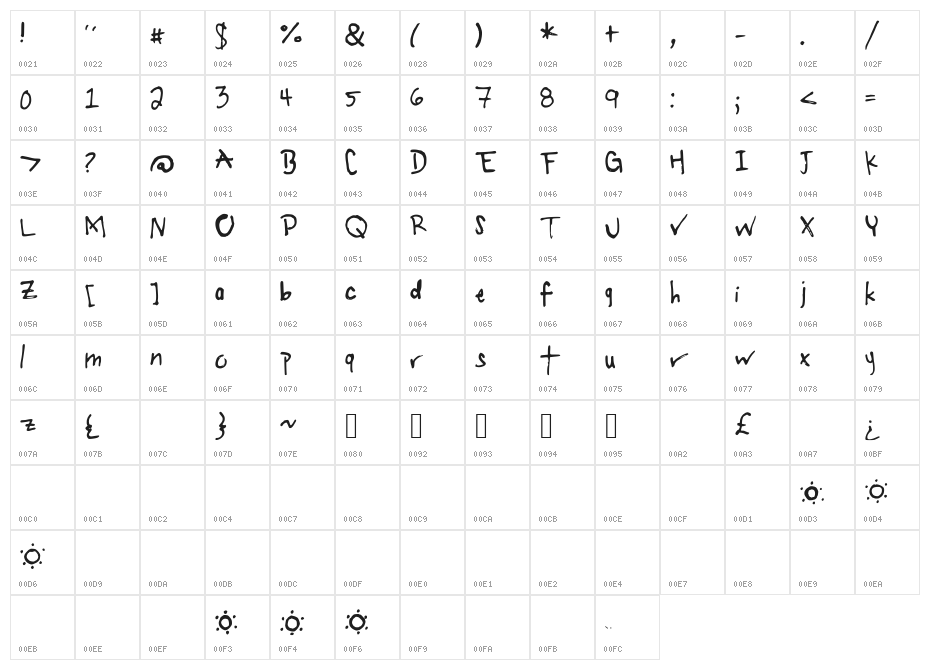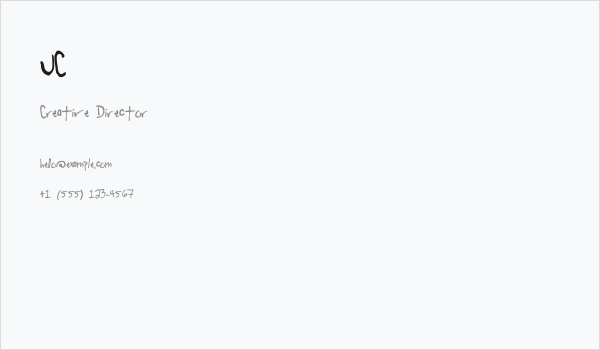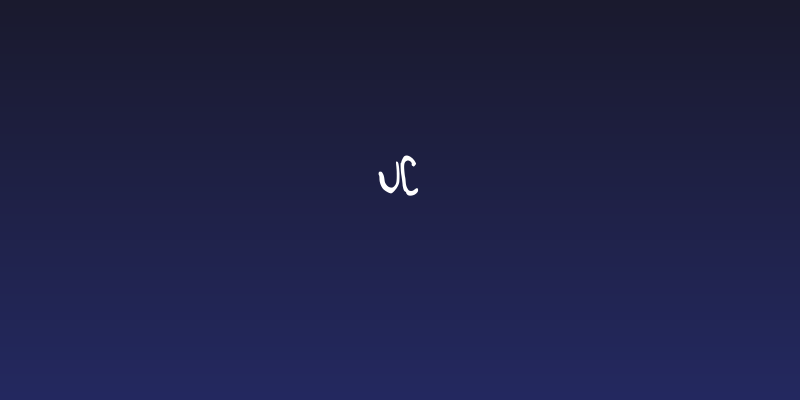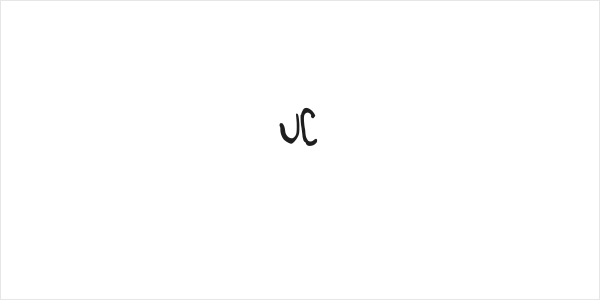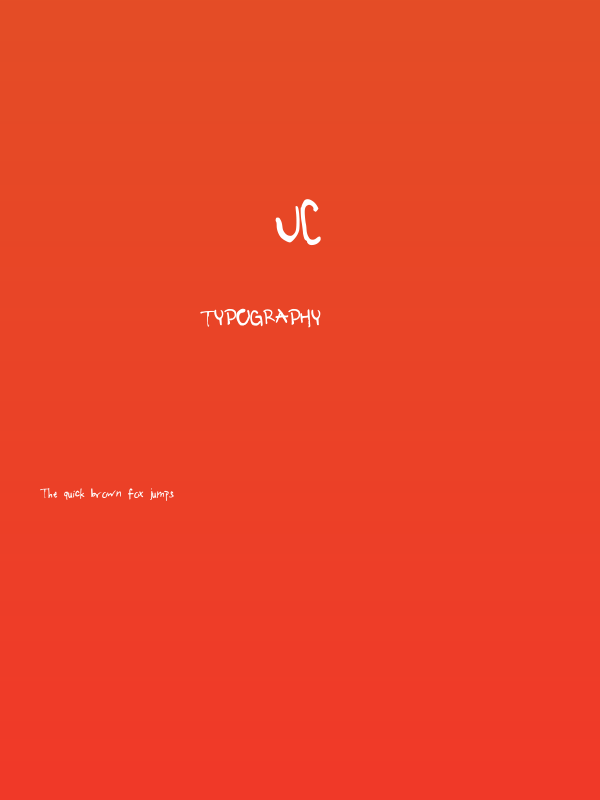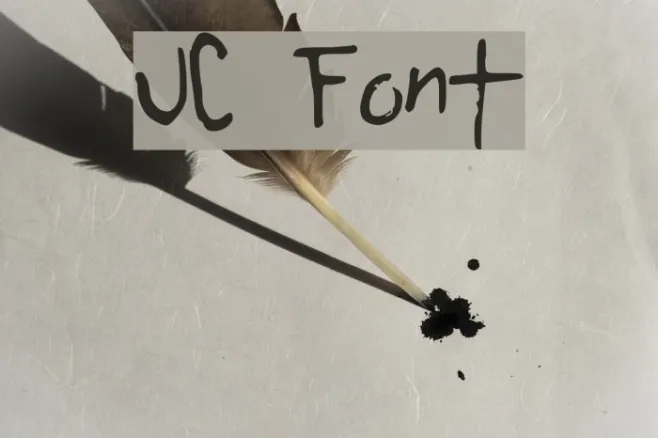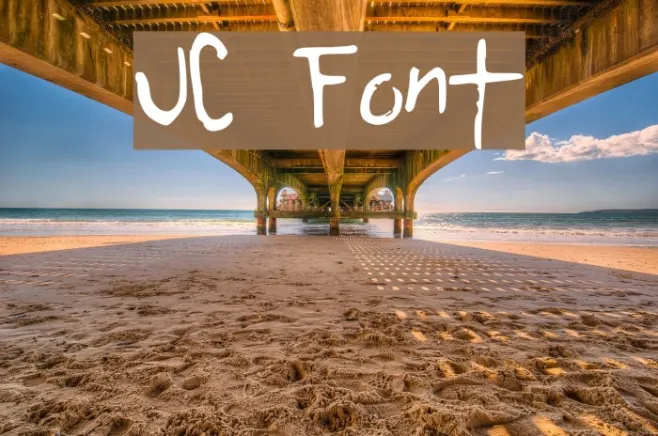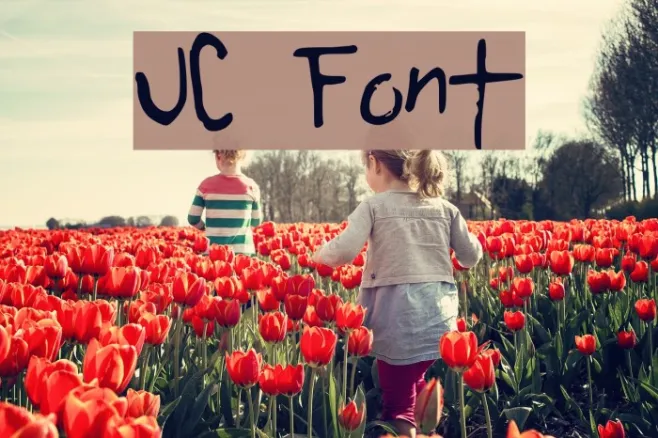
UC Font
UC Description
This font exudes a playful and informal vibe, characterized by its hand-drawn appearance. The letters are uneven and slightly irregular, giving it a casual and spontaneous feel. The strokes are bold and varied, with a noticeable contrast between thick and thin lines, adding to its dynamic nature. The characters are slightly tilted and have a whimsical quality, making it ideal for creative and artistic projects. The font includes a full set of uppercase and lowercase letters, numbers, and a variety of special characters, ensuring versatility in design applications.
| Proposed Projects | Ideal for children's book covers, playful branding, artistic posters, and creative social media graphics. |